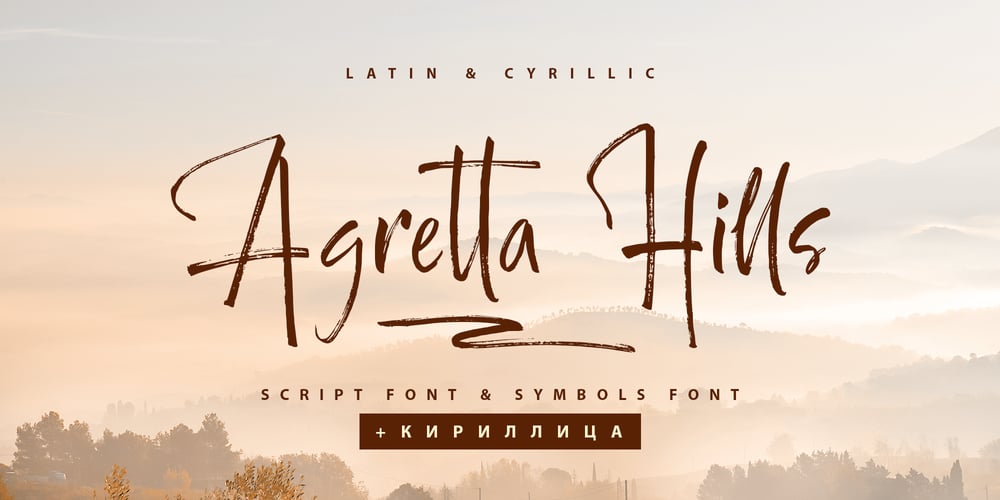
Agretta Hills Cyrillic
Agretta Hills Cyrillic font
Agretta Hills Cyrillic Font Family was designed by Iryna Dviliuk and published by Ira Dvilyuk. Agretta Hills Cyrillic contains 2 styles and family package options. Agretta Hills Cyrillic Textured Script Font adds hand look style to all your design projects: logos, signatures, labels, packaging design, and blog headlines. Also, it will look great in mugs, cards, gorgeous typographic designs, wedding stationery, and much more. An additional font Agretta Hills Symbols can help you to make a lot of pretty designs and logos.Agretta Hills script includes a full set of uppercase and lowercase letters, numerals, a large range of punctuation, and 16 ligatures, giving a realistic hand-lettered style.The Cyrillic part of the font contains the uppercase letters and lowercase letters and 16 ligatures, giving a realistic hand-lettered style.Agretta Hills Symbols is a font with over 36 unique, hand-drawn elements and swashes that can help to make your design more original. A different symbol is assigned to every uppercase or lowercase standard character plus numbers 0-9 so you do not need graphics software just simply type the letter you need.Multilingual Support for 32 languages: Latin glyphs for Afrikaans, Albanian, Basque, Bosnian, Catalan, Danish, Dutch, English, Estonian, Faroese, Filipino, Finnish, French, Galician, Indonesian, Irish, Italian, Malay, Norwegian Bokmål, Portuguese, Slovenian, Spanish, Swahili, Swedish, Turkish, Welsh, Zulu.And Cyrillic glyphs support Russian, Belorussian, Bulgarian, Ukrainian, and Kazakh languages.Works perfectly on the Canva platform.For Cricut & Silhouette recommended.